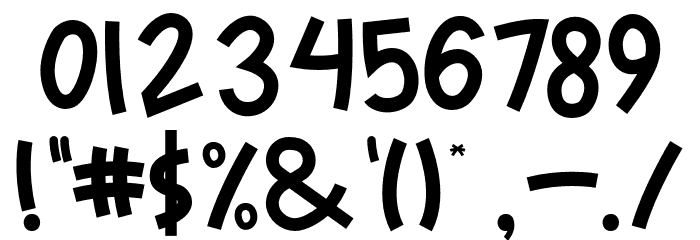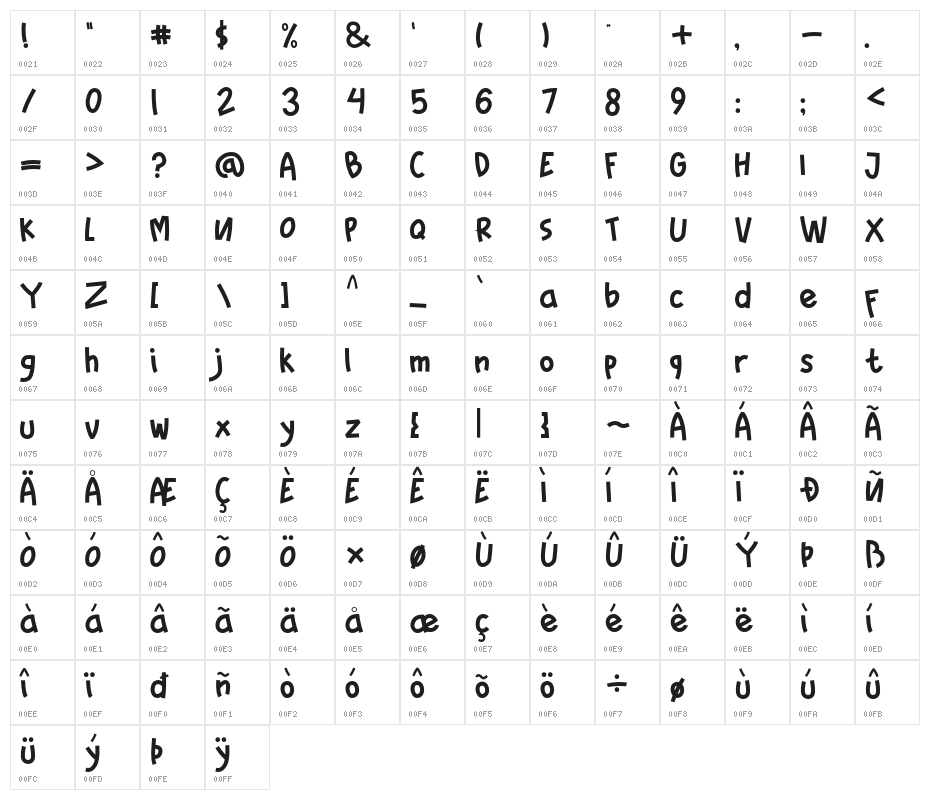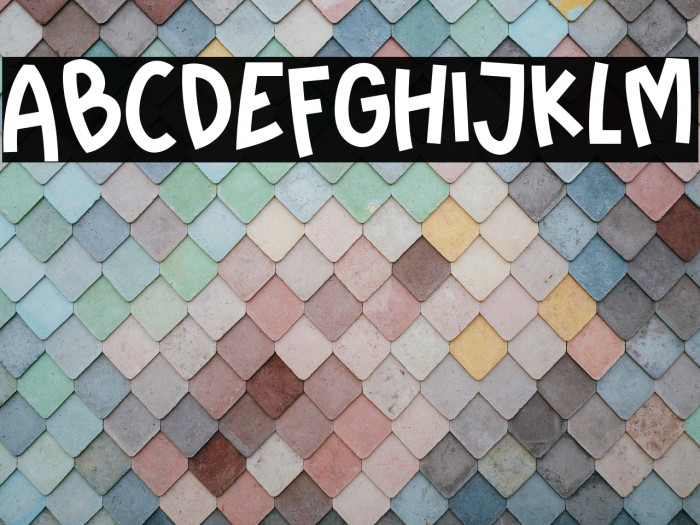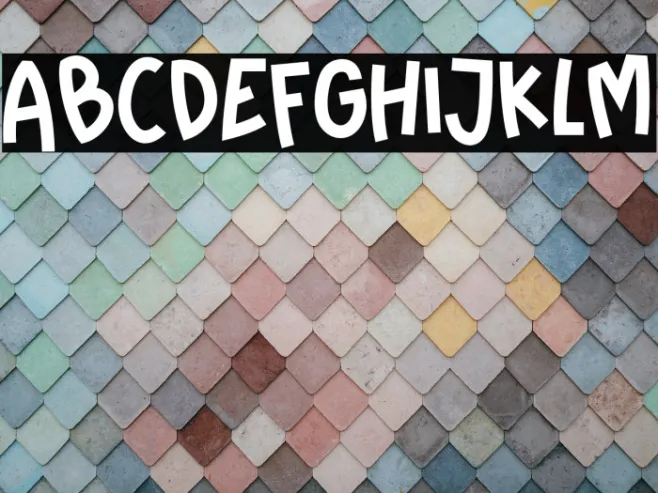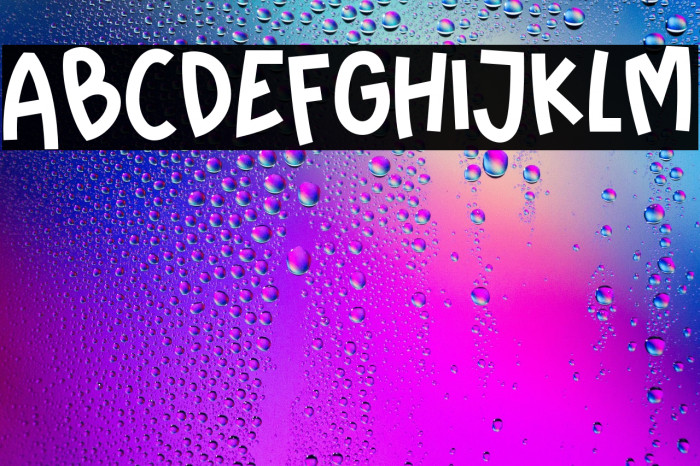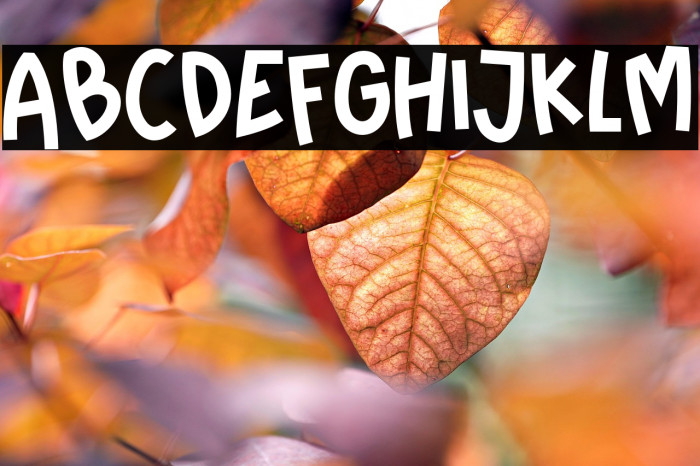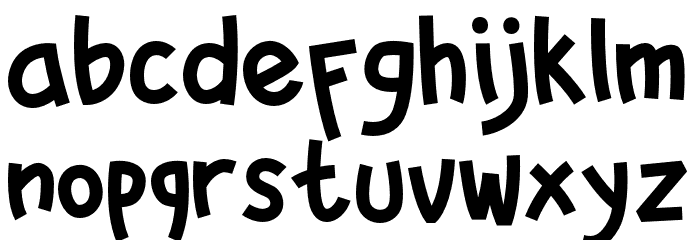
SweetSaturday Font
SweetSaturday Description
This playful and whimsical font features bold, rounded characters with a hand-drawn feel. The letters are slightly irregular, adding a sense of fun and creativity. The uppercase and lowercase letters maintain a consistent style, with a slight tilt that gives them a dynamic appearance. Numbers and special characters are equally bold and expressive, making them stand out. The overall design is approachable and friendly, perfect for projects that require a touch of personality and charm.